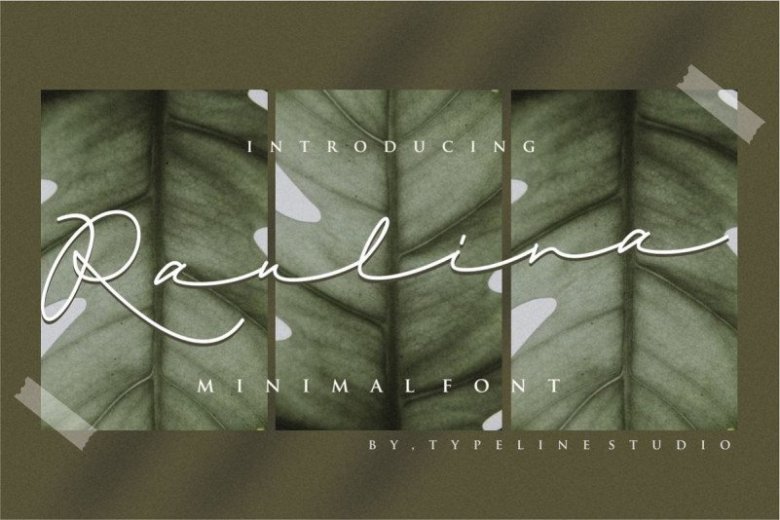
Raulina Signature Font
Say hello to Raulina Font. A lovely natural handwriting font by typeline studio. This is a fresh handwritten font, elegant and vintage feel character set. It’s a handwritten font with a long tail like a written text for a loved one in the past. It’s very well suited for projects,youtube project,lyric font,instagram font, signatures font, quotes, wedding invitations, branding, logos, magazines, titles, and other project projects.this font very luxury and minimalist.